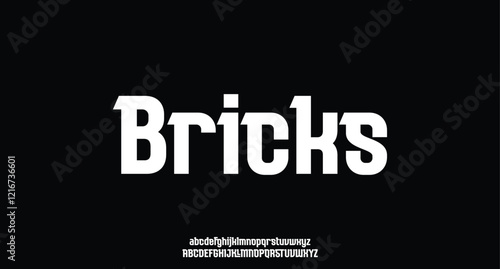
Modern geometric font, abstract tech type and futuristic technology typeface, vector techno alphabet. English letters font of digital future, HUD or computer game cyber world and Sci fi technology